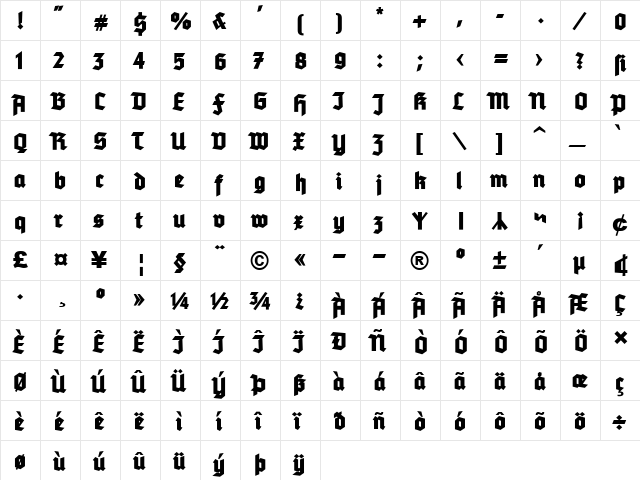
Tannenberg Fett UNZ1 Regular
Design Context for Tannenberg Fett UNZ1 Typeface
Tannenberg Fett UNZ1 is a composed and adaptable typeface that performs quietly and consistently across a wide range of design contexts.